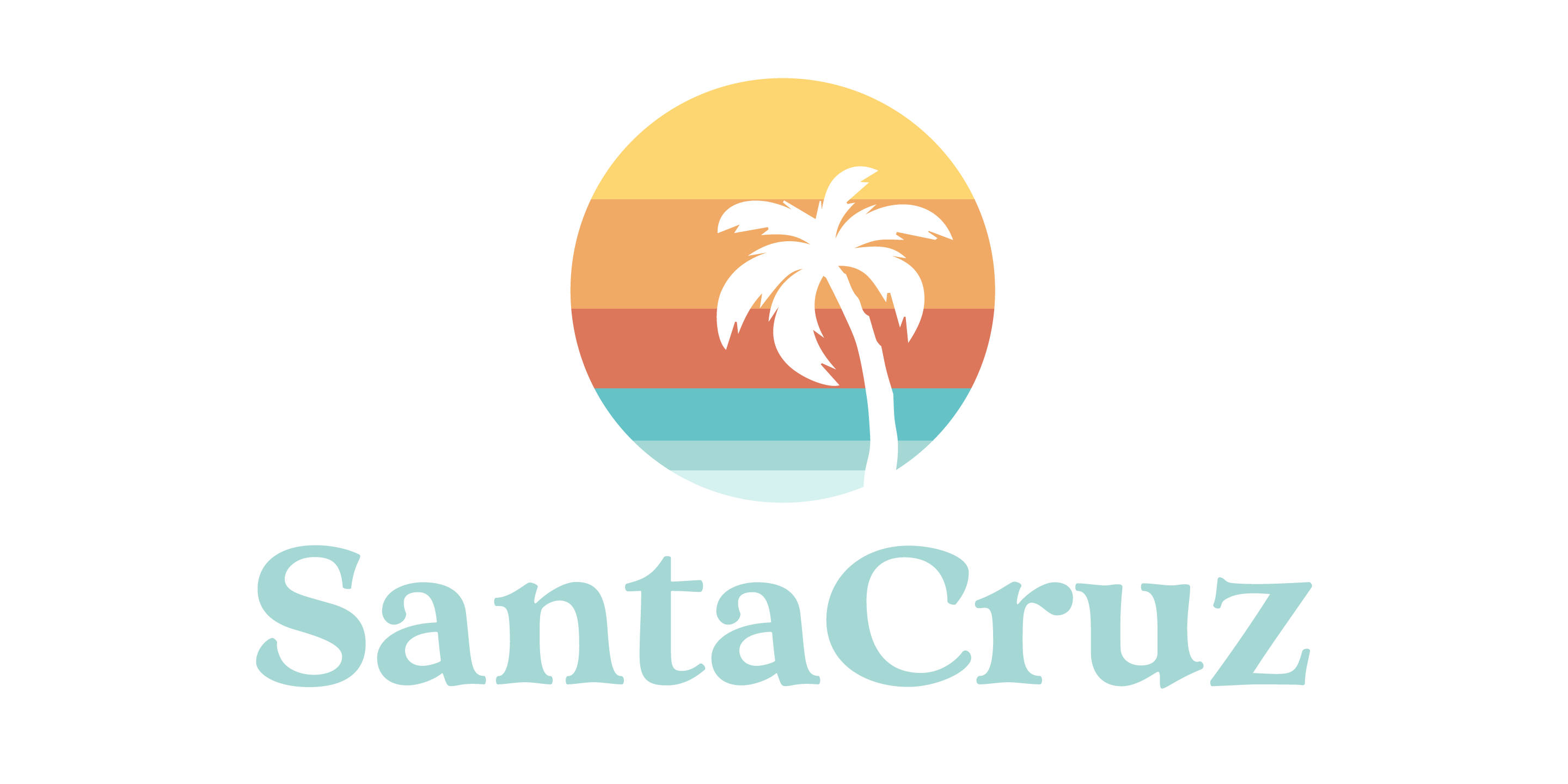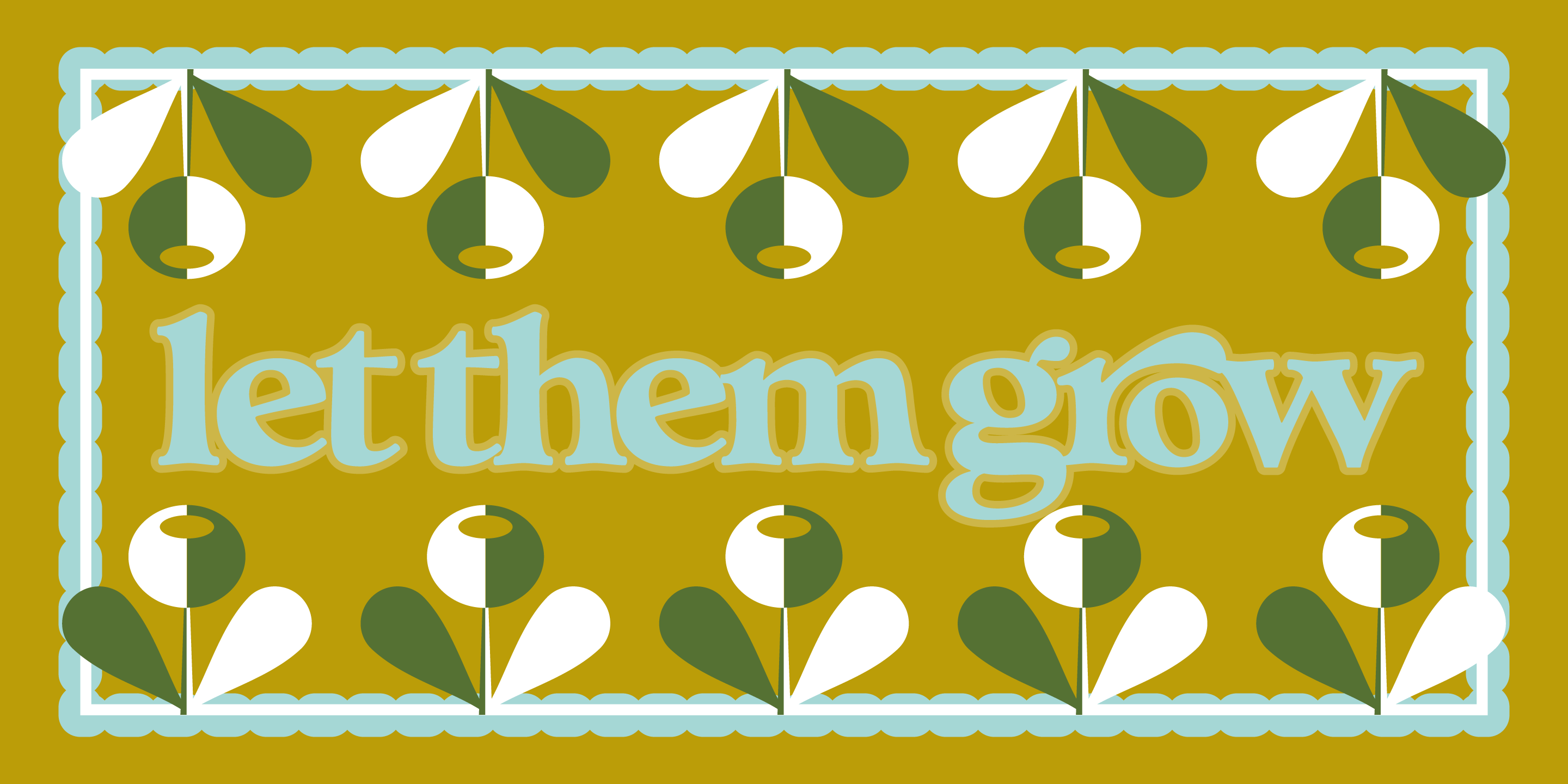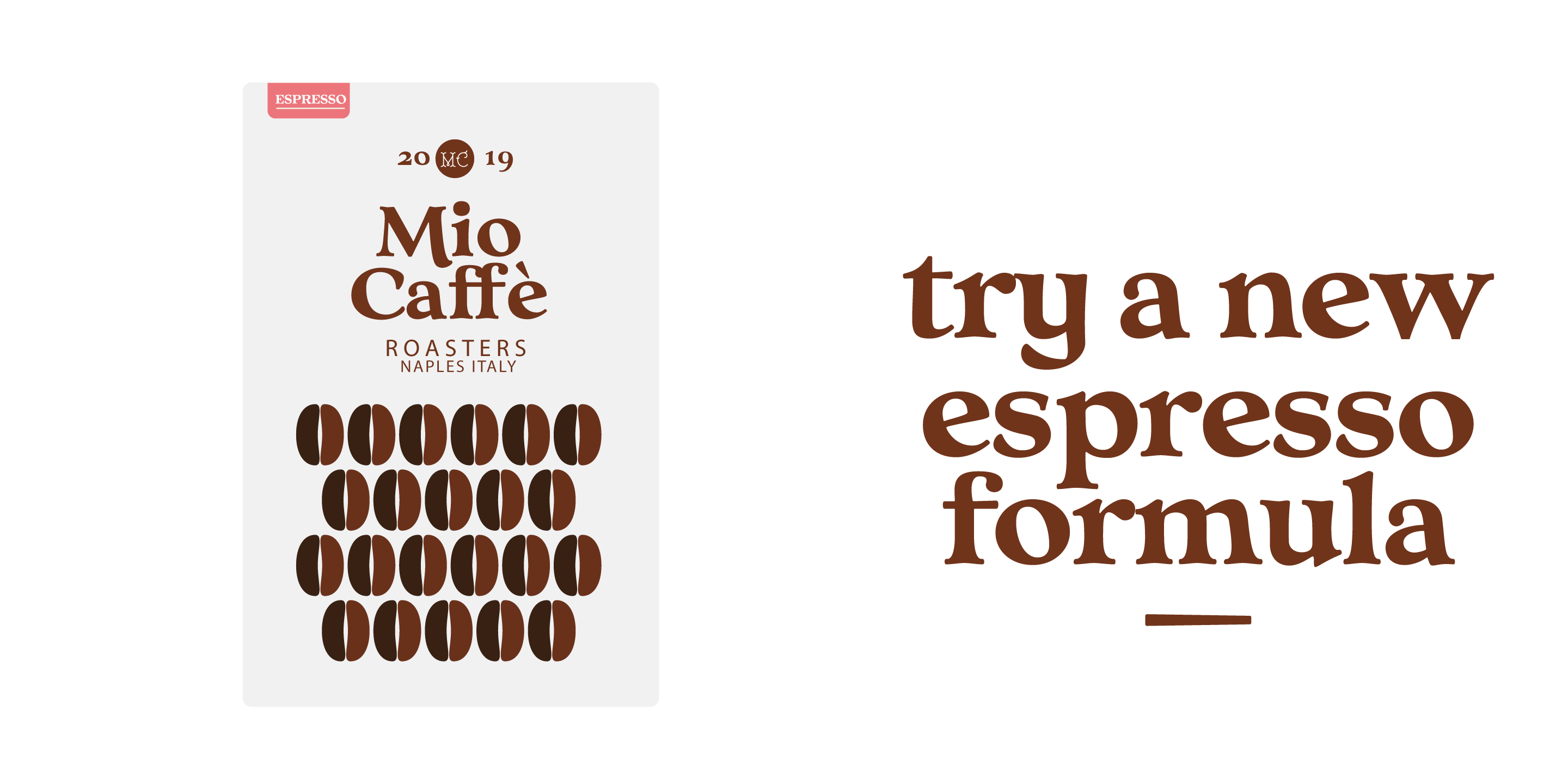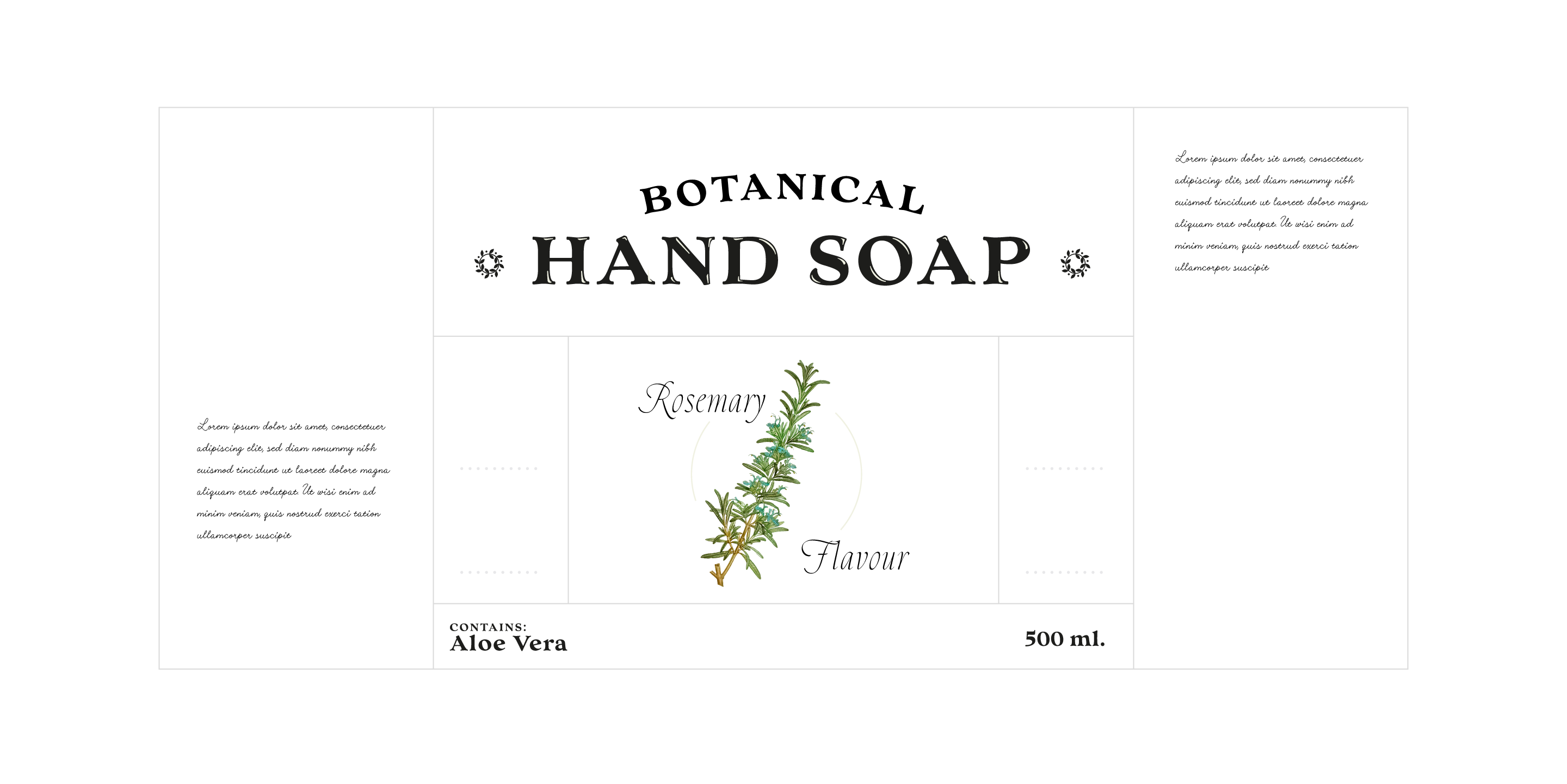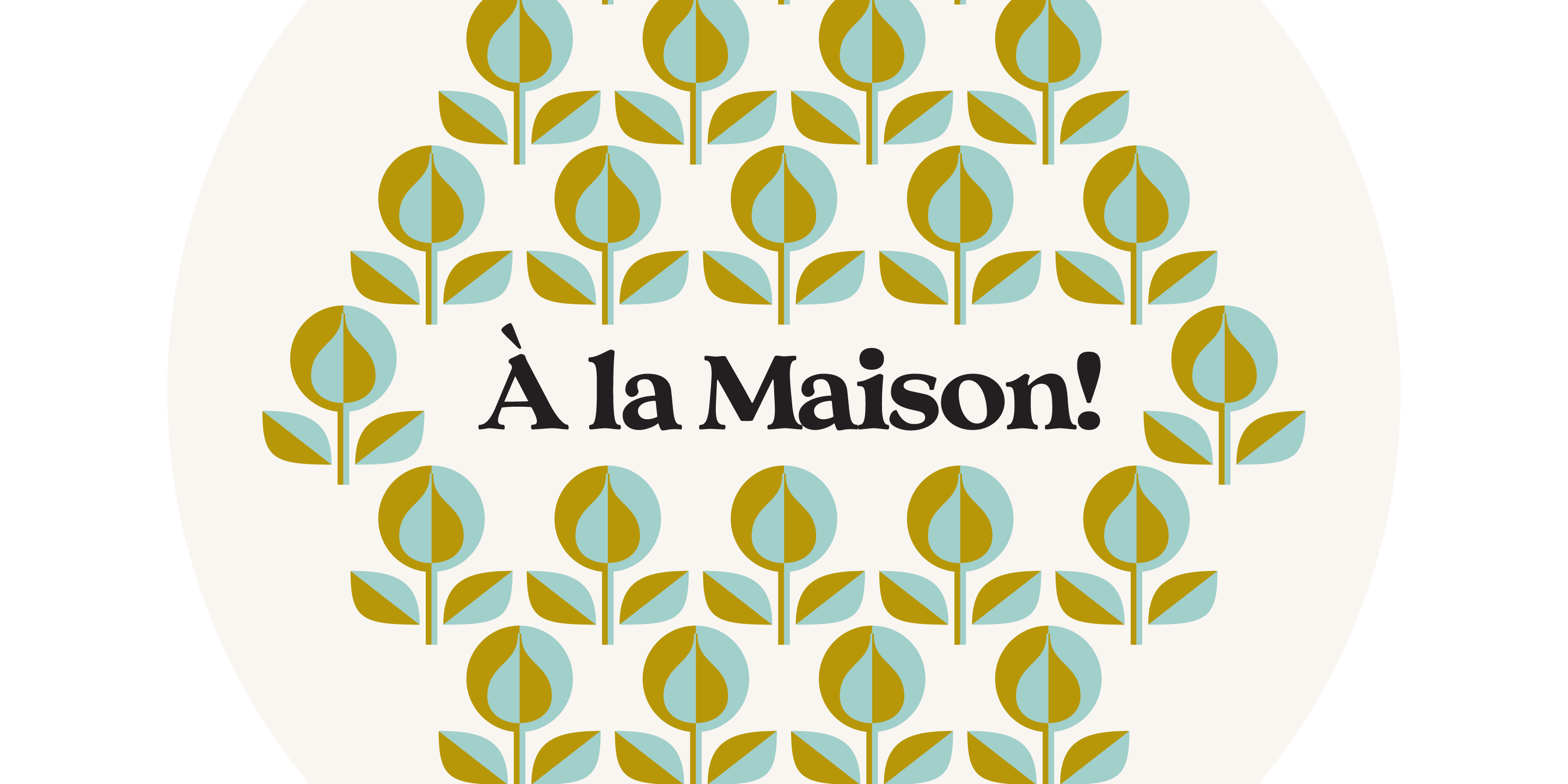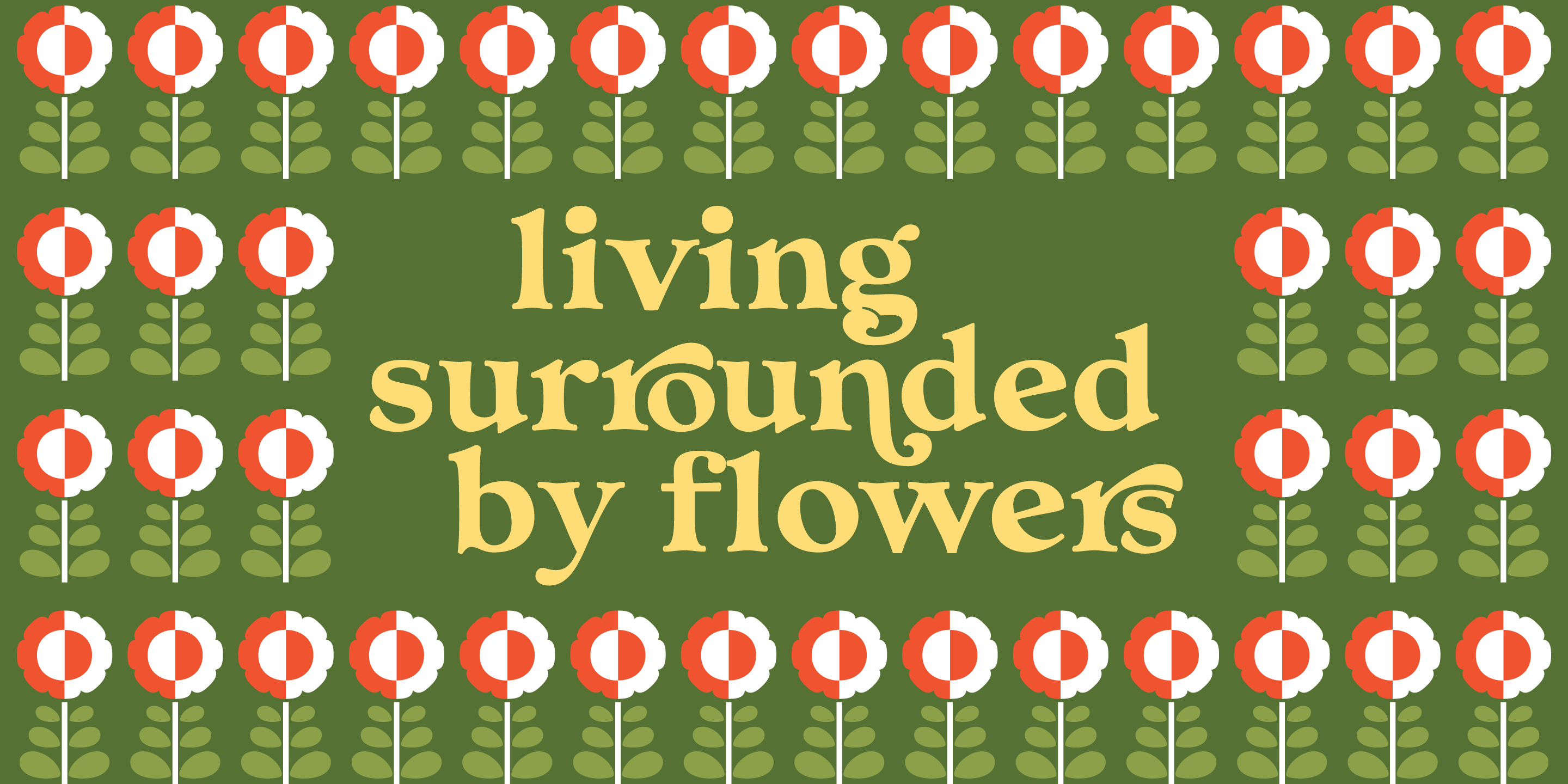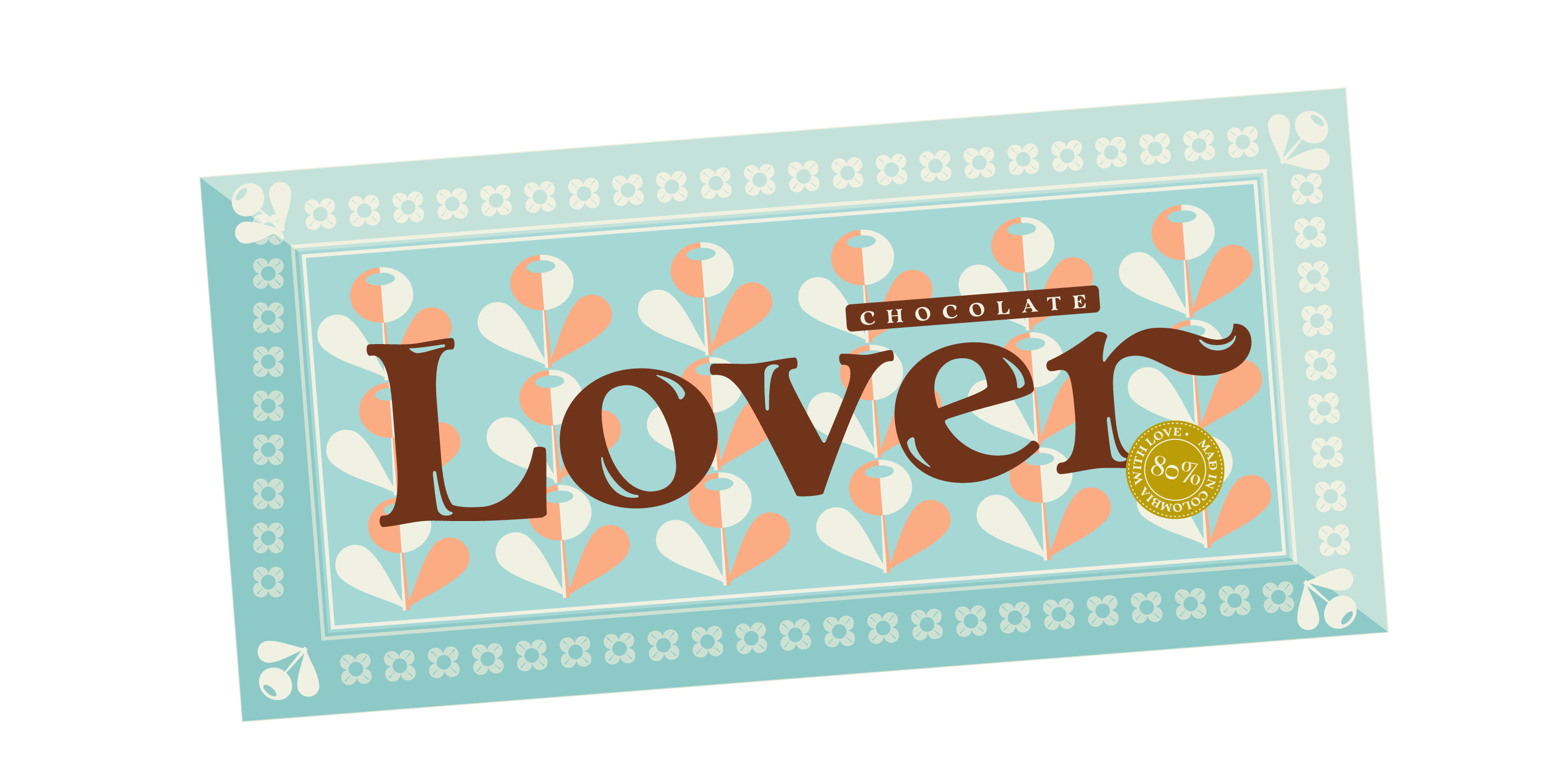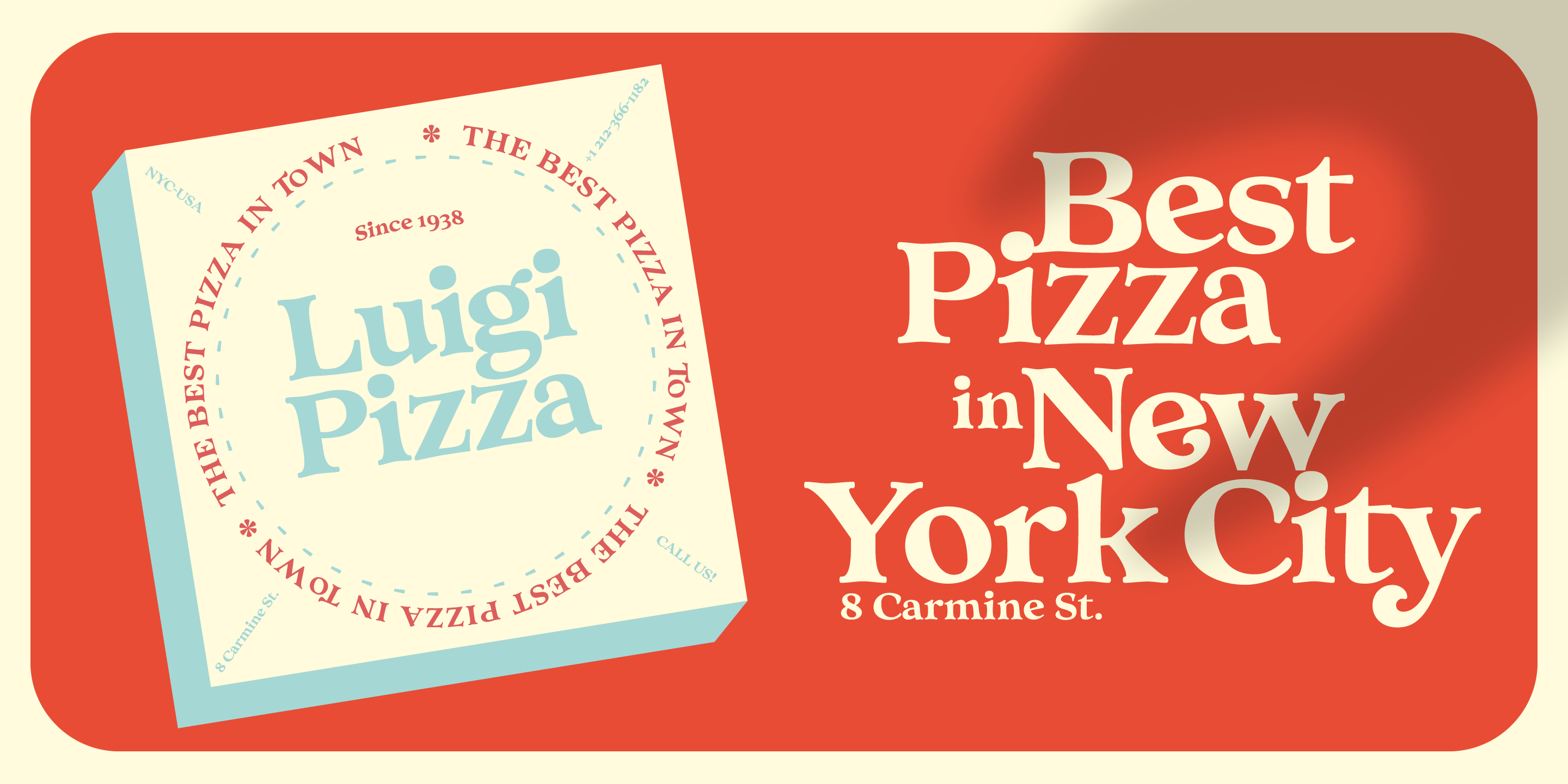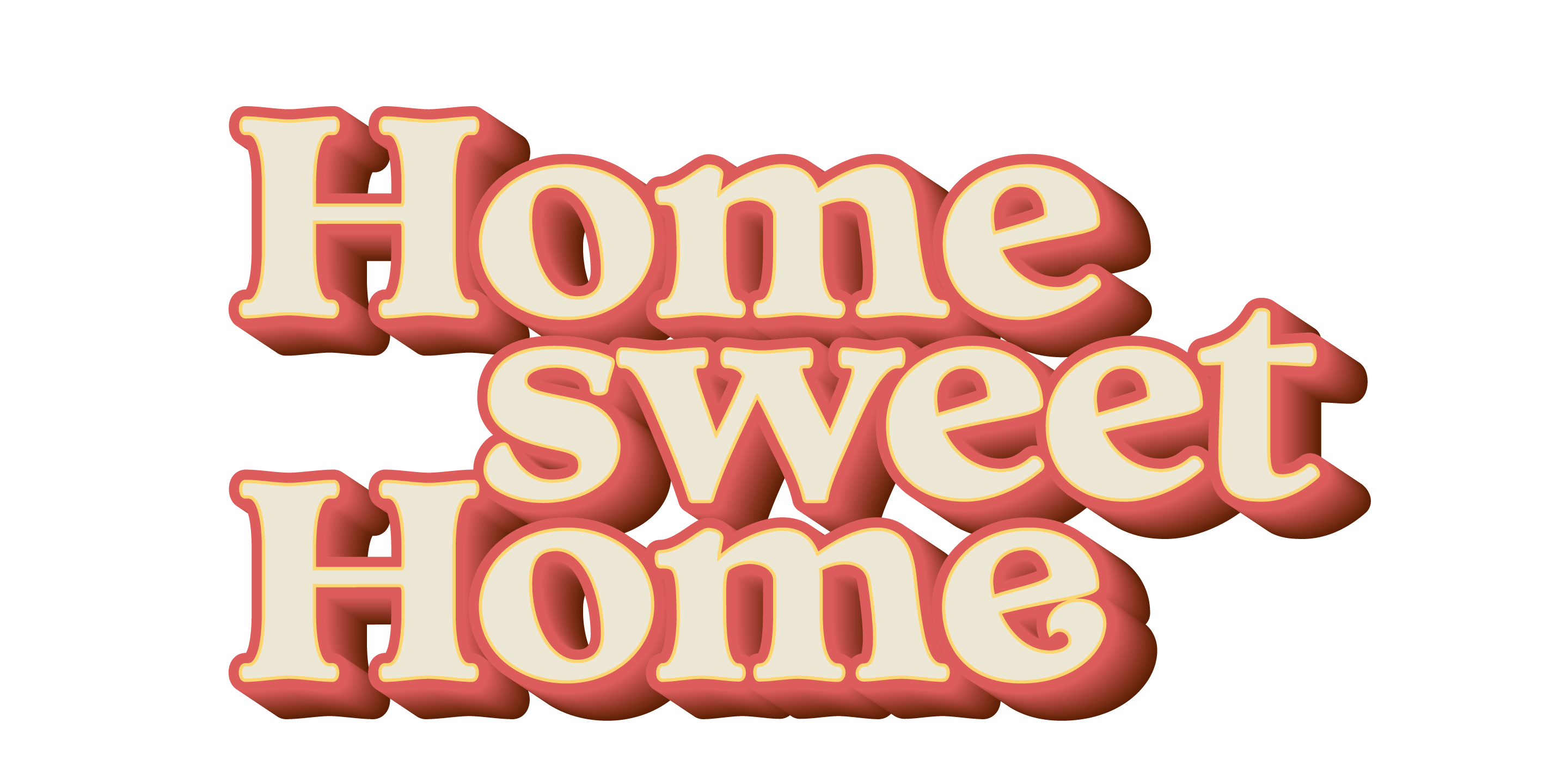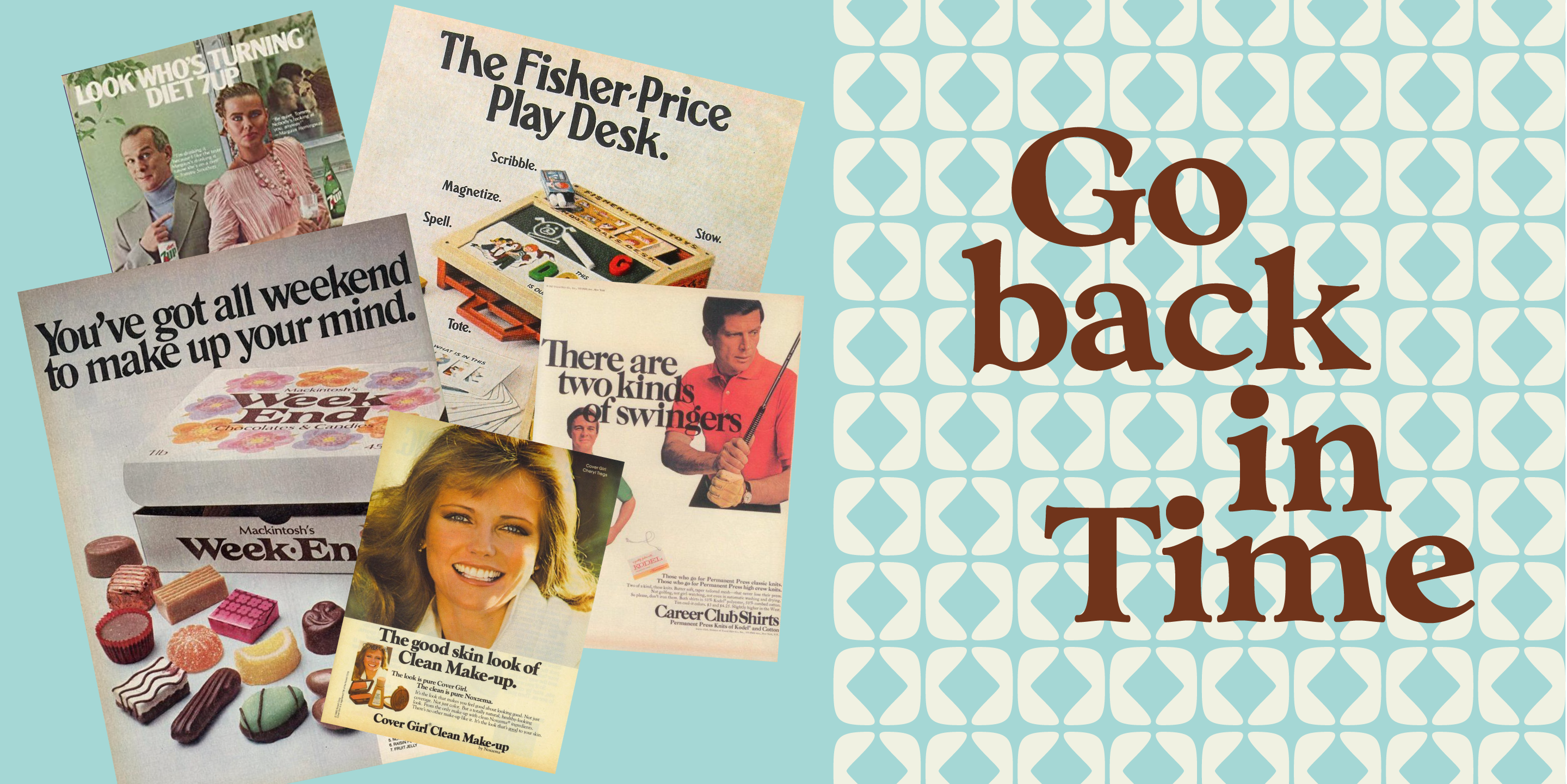
Nostalgia
A beautiful serif font with a nostalgic touch
Nostalgia
Designed by Resistenza Type FoundryNostalgia is our contemporary interpretation of this beautiful collection of fonts. Our aim is to draw the positive mood of these nostalgic letterforms with softened edges and rounded terminations, to evoke a fresh and contemporary view on this graphic approach.
An extended set of alternates & swashes specially designed to create stylish lettering compositions have been included. You can Access your OpenType features and discover all the possibilities.
Combining the glyphs with "Nostalgia Icons" as well as changes of color you'll feel the magic. This endless collection of flowers and decorative forms will boost the vintage mood to any project.
The result is a very versatile font that works in a wide range request, from logos, headlines, branding, magazine design to wedding cards, poster and so much more.